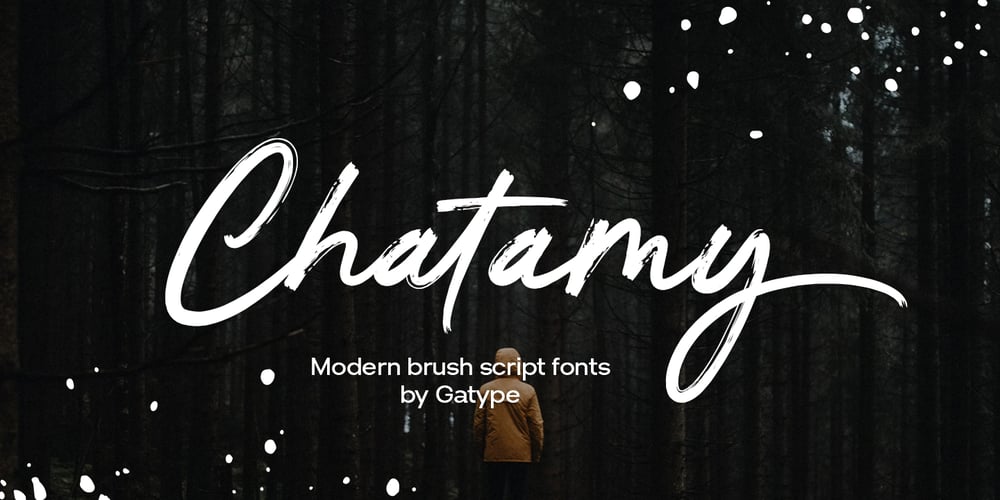
Chatamy
Chatamy font
Chatamy Font Family was designed by khaidir and published by Gatype. Chatamy contains 1 styles and family package options. The Chatamy font is a brush-style typeface characterized by smooth, elegant, and slightly messy handwritten letters. The letters appear as if drawn with a soft-tipped brush, creating an artistic and natural look. The strokes of the letters tend to be thick with dynamic thin variations, adding a modern and personal touch.This font is often used for design projects such as invitations, logos, or branding that require a creative yet elegant feel.